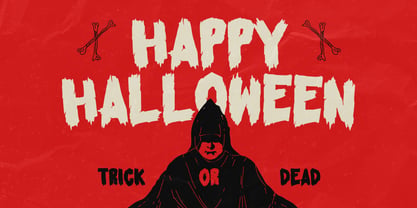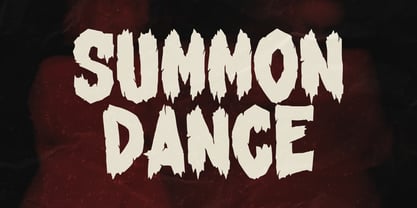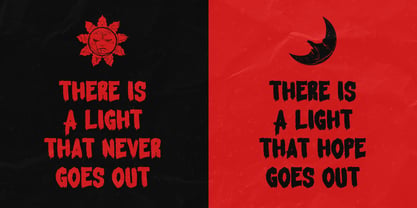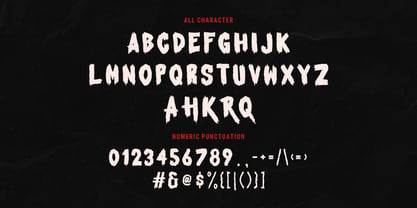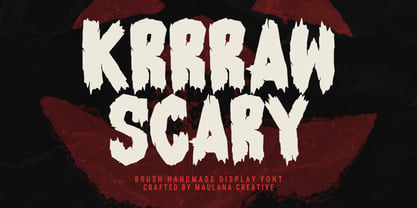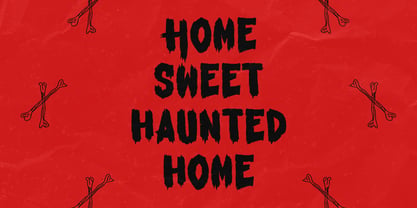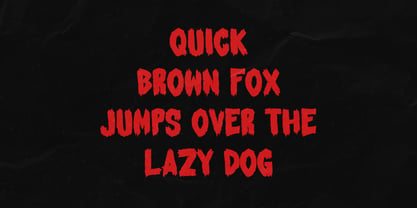
MC Krrraw
by Maulana Creative
The MC Krrraw Font Family was designed by Gilang Maulana and published by Maulana Creative. MC Krrraw contains 1 styles. More about this family
Krrraw is a brush horror style display font. To give you an extra creative work with alternate. Krrraw font support multilingual more than 100+ language. This font is good for logo design, Social media, Movie Titles, Books Titles, a short text even a long text letter and good for your secondary text font with sans or serif. Make a stunning work with Krrraw font.